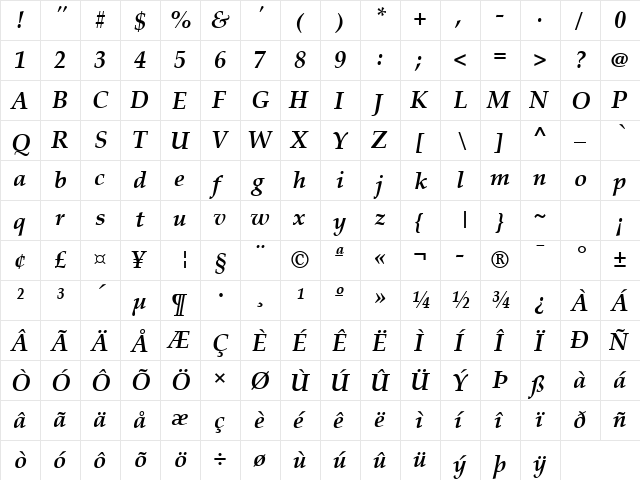
Palatino Linotype Bold Italic Font Preview
| Foundry | LINOTYPE-HELL AG |
| Designer | Hermann Zapf |
Design Context for Palatino Linotype Typeface
Palatino Linotype offers clean, dependable letterforms without strong stylistic allegiance, making it a practical choice for designers who need flexibility. Its italic angle brings a sense of urgency and motion to the letterforms. Its bold stroke weight gives it real presence on the page.
Pro Tip: Try Palatino Linotype for annotation and caption copy alongside an upright companion — the contrast in angle creates a dynamic but ordered typographic system.